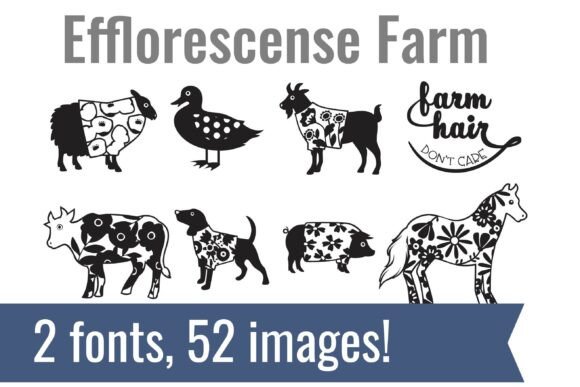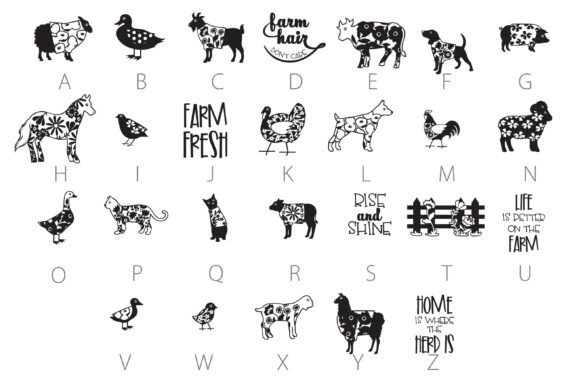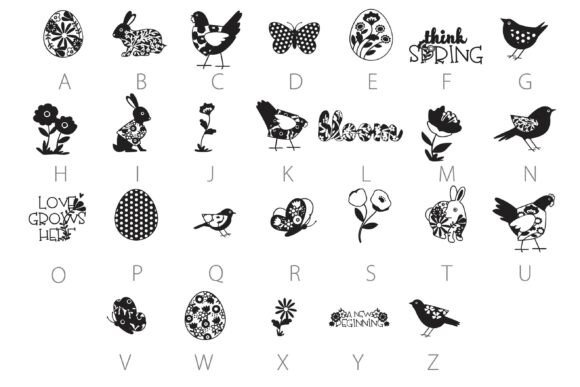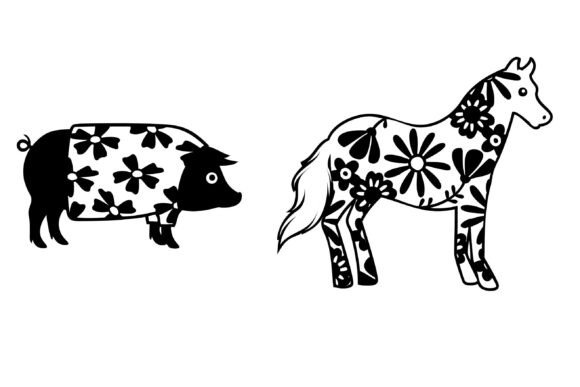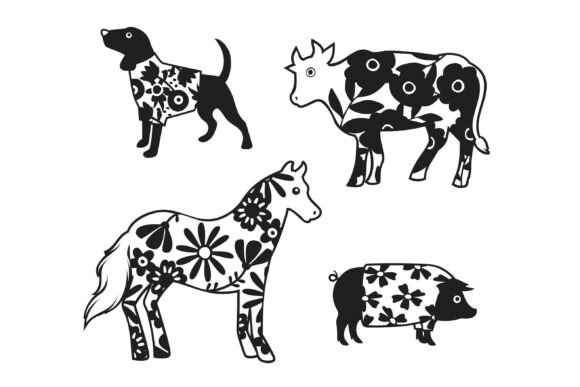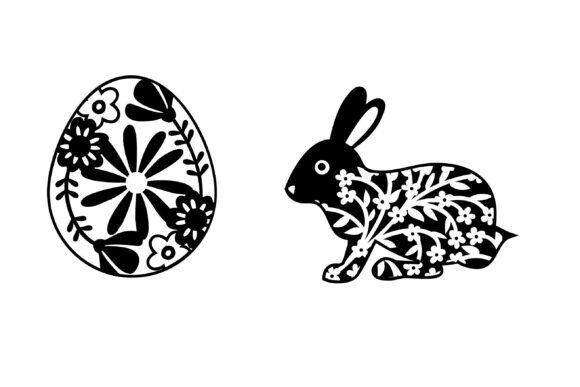
Unlock Endless Creativity with Efflorescense Dingbats Font
As a designer, I’ve had my fair share of frustrating moments while working on a project. I recall one particularly challenging experience when I was tasked with creating a custom Easter-themed invitation for a client. I spent hours scouring the internet for the perfect icons and graphics, only to end up with a mismatched and visually unappealing design. That’s when I discovered the power of dingbat fonts, specifically the Efflorescense Dingbats Font. This game-changing font bundle has been a staple in my design toolkit ever since.
What is Efflorescense Dingbats Font?
The Efflorescense Dingbats Font is a bundle of two perfectly coordinated dingbat fonts, featuring adorable Easter and farm characters, florals, and more. This font bundle is a treasure trove of creative possibilities, providing dozens of cohesive, scalable designs at your fingertips. With Efflorescense, you can say goodbye to tedious searches for individual icons and graphics, and hello to a world of streamlined design.
Honest Review: The Good and the Great
So, what makes Efflorescense Dingbats Font so special? Here are some of the things I love:
- ✅ Cohesive designs: The two fonts in this bundle are perfectly coordinated, ensuring a consistent look and feel across your designs.
- 🌸 Variety of characters: From Easter-themed icons to farm characters and florals, this font bundle has everything you need to create stunning designs.
- 💻 Scalable designs: The vector-based nature of dingbat fonts means you can scale your designs up or down without losing any quality.
While Efflorescense Dingbats Font is an amazing tool, there are a few minor quirks to be aware of:
- 🤔 Learning curve: If you’re new to dingbat fonts, it may take some time to get familiar with the different characters and how to access them.
- ⚠️ Glyph compatibility: Some platforms may not support the full range of glyphs and special characters, so be sure to test the font on your intended platform.
The Efflorescense Dingbats Font was created with the intention of providing designers, crafters, and creative hobbyists with a versatile and fun tool for their projects. The designer, inspired by the beauty of nature and the joy of crafting, aimed to create a font that would bring a touch of whimsy and charm to any design.
| What type of designs can I create with Efflorescense Dingbats Font? | You can create a wide range of designs, from holiday cards and invitations to vinyl cuts, paper crafts, and planners. |